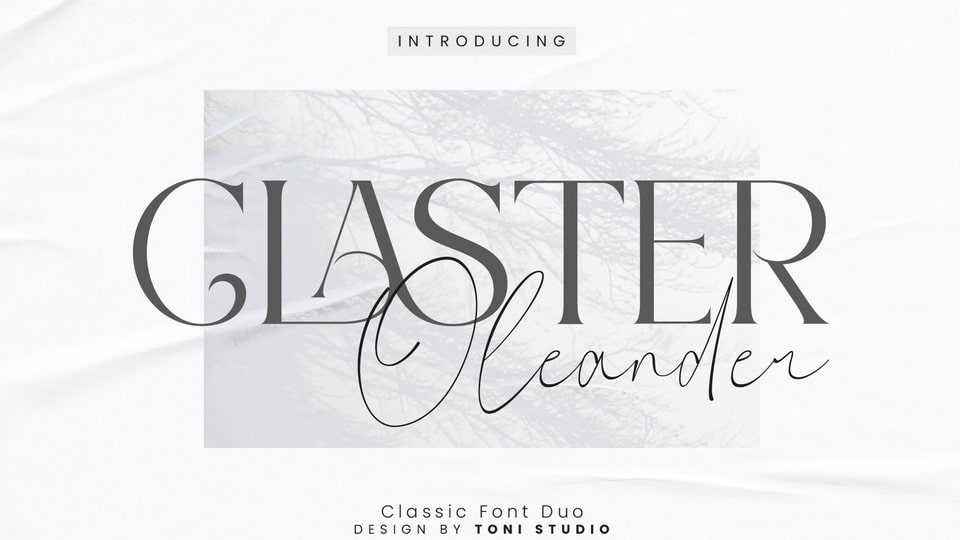
Download Claster Oleander font, a classic serif typeface with elegant curves paired with handwritten script. With a modern look, Claster Oleander brings classy and luxurious style to your design.
Designer: ToniStudio